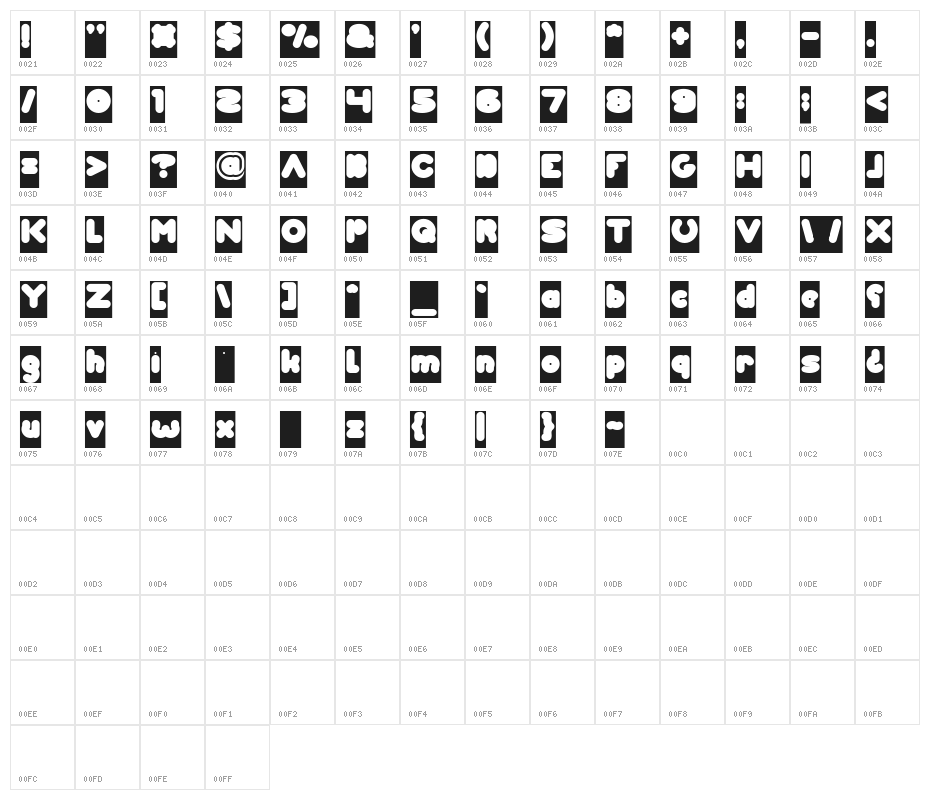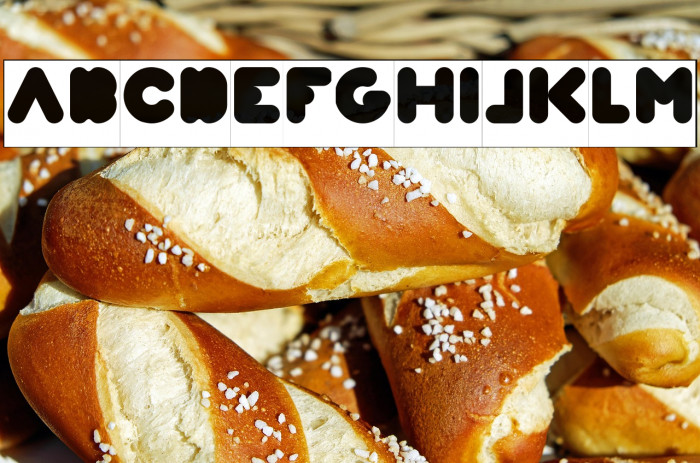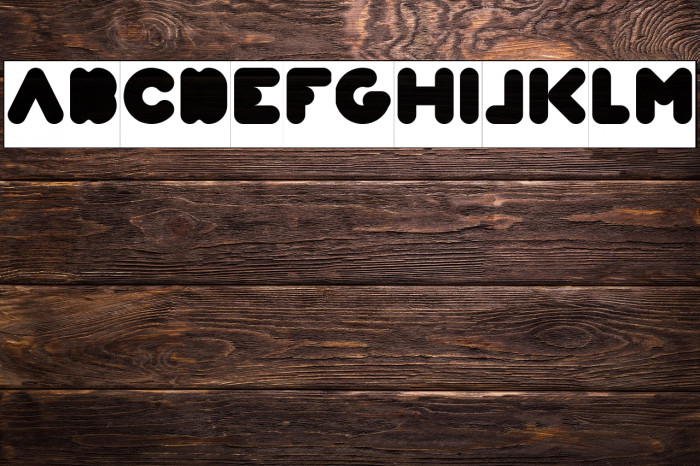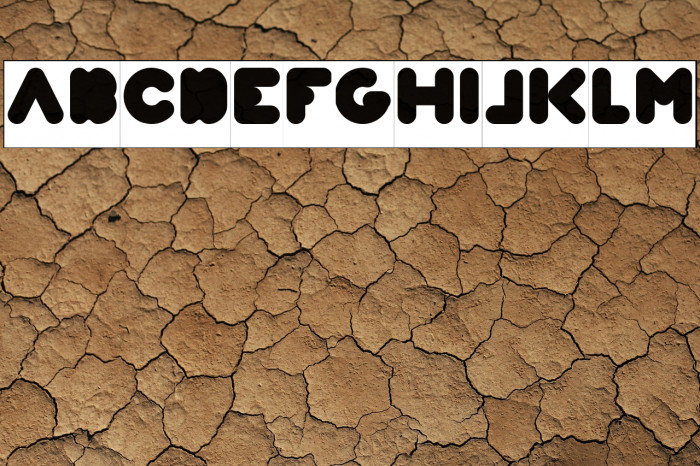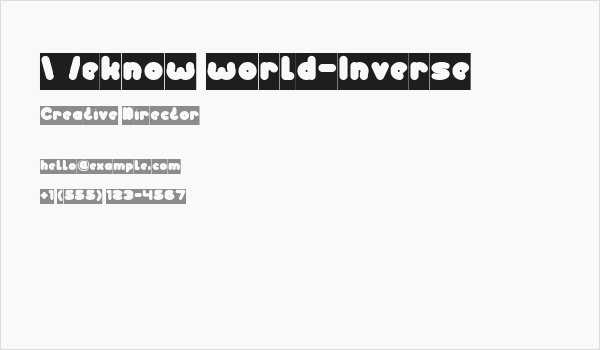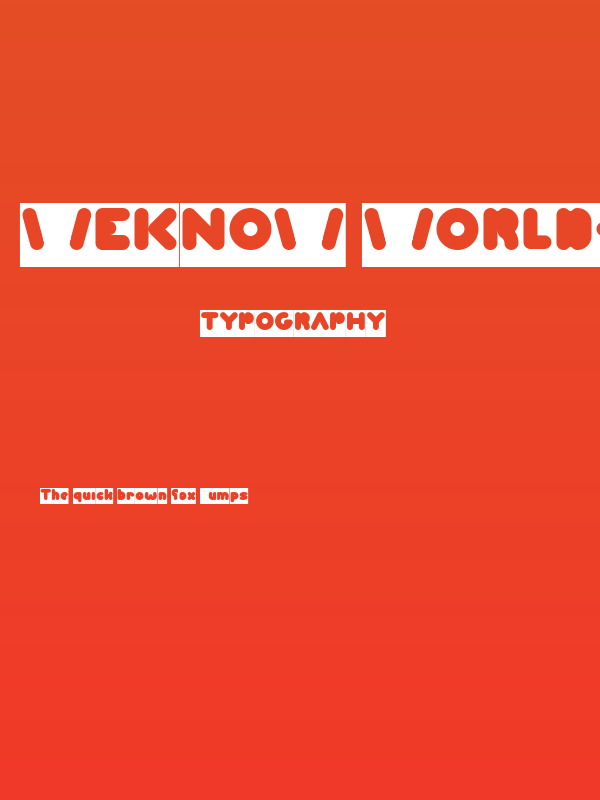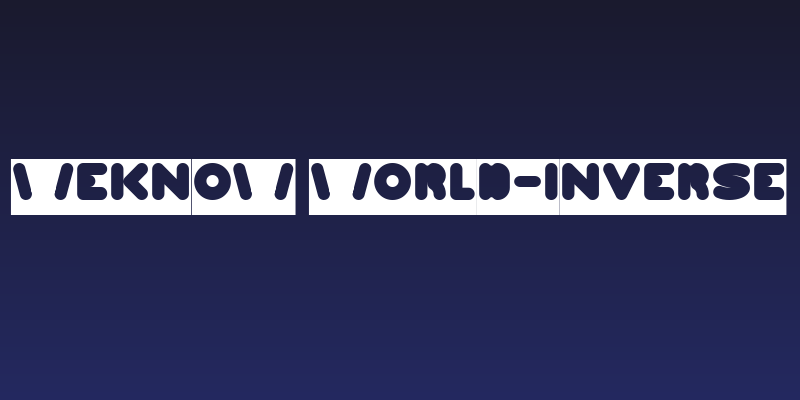
Weknow world-Inverse Font
Weknow world-Inverse Description
This playful and bold font features rounded, bubble-like characters that create a fun and inviting appearance. The letters are thick and have a consistent stroke width, giving them a uniform and cohesive look. The font's style is reminiscent of retro or vintage designs, with a modern twist that makes it suitable for contemporary projects. Its unique and eye-catching design makes it ideal for use in creative and informal settings. The characters are evenly spaced, providing a balanced and harmonious visual flow. This font is perfect for projects that require a touch of whimsy and creativity.
| Overall Style | Playful, Retro, Modern |
| Proposed Projects | Children's books, party invitations, playful branding, posters, and social media graphics. |